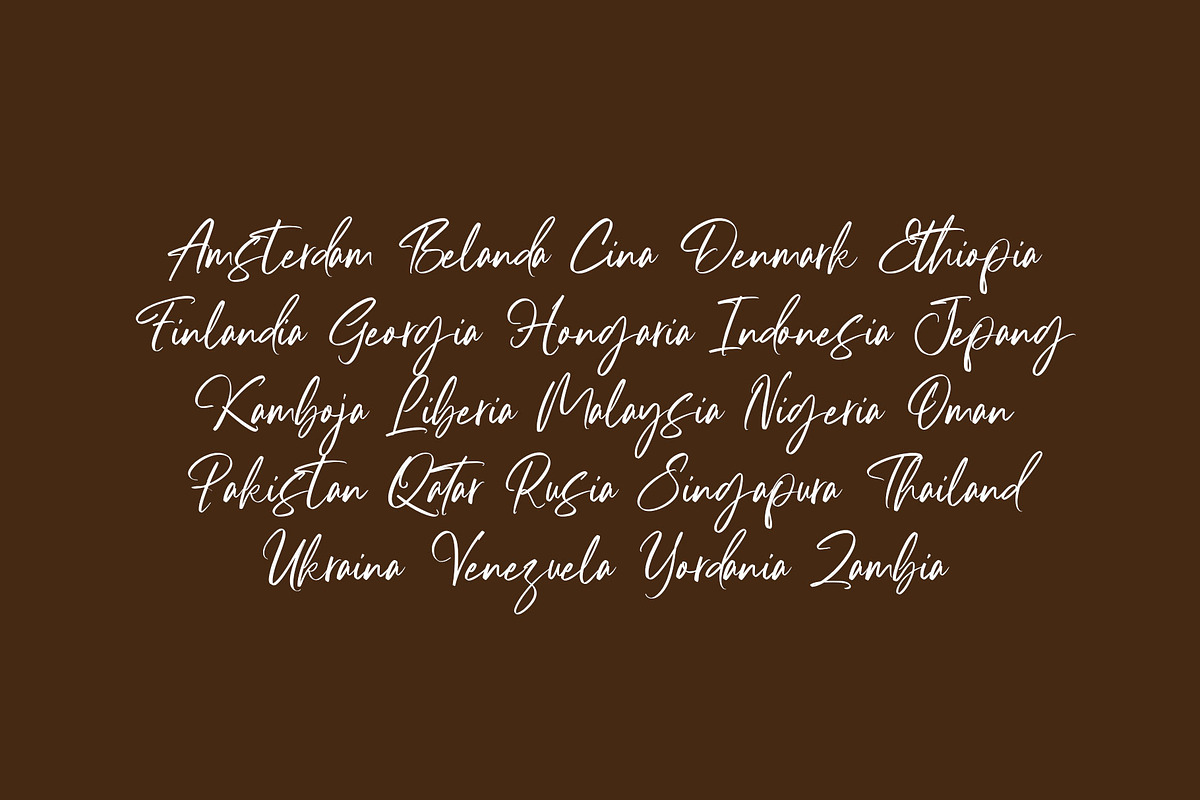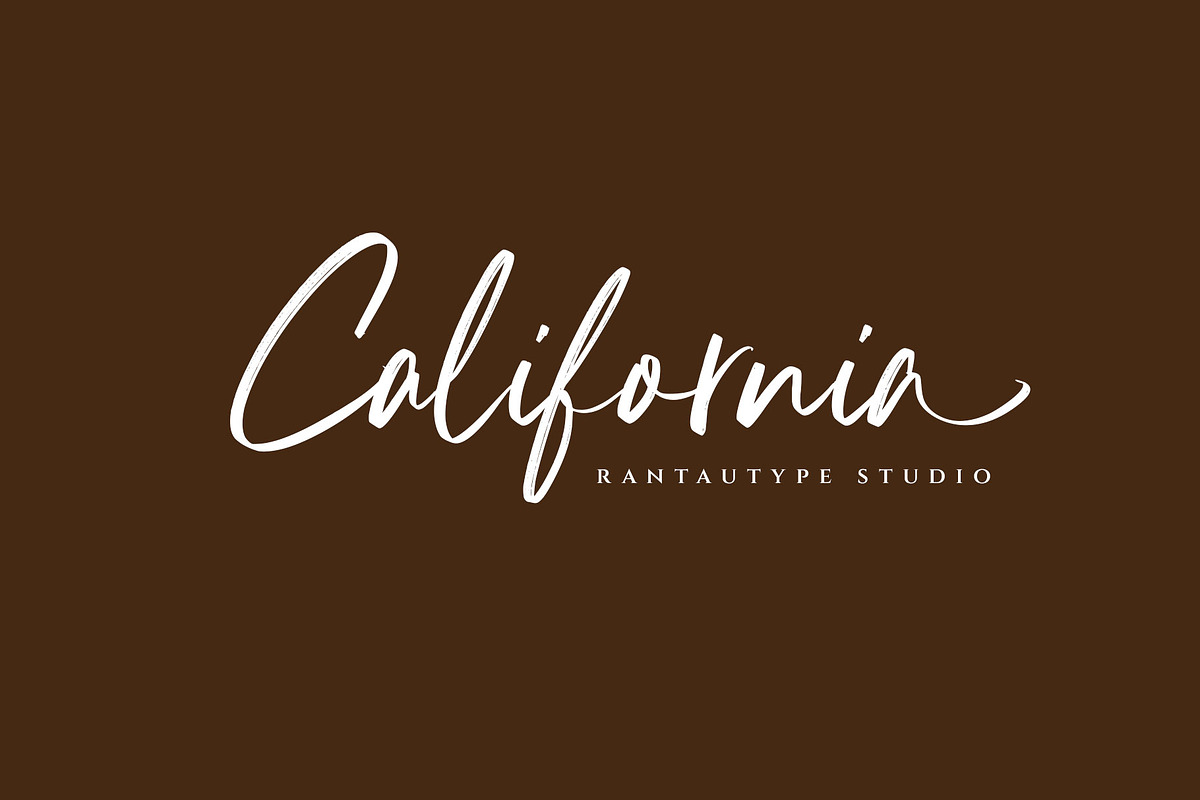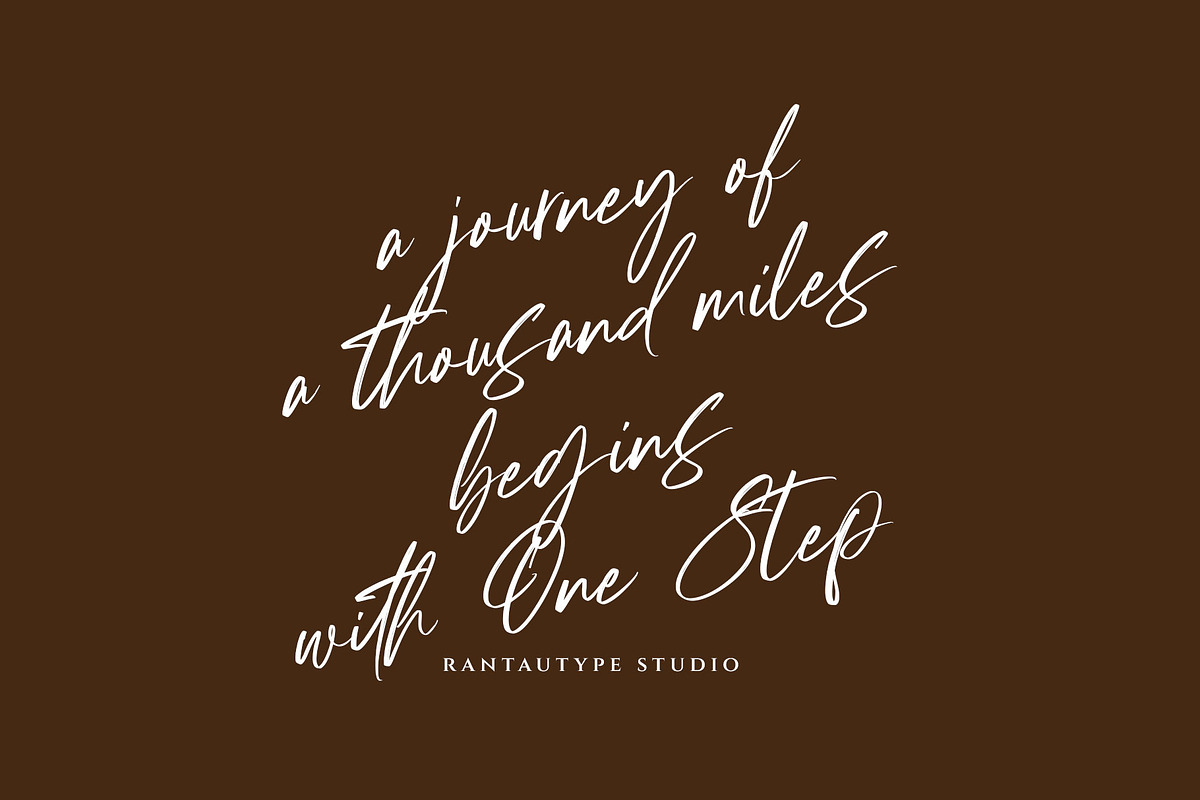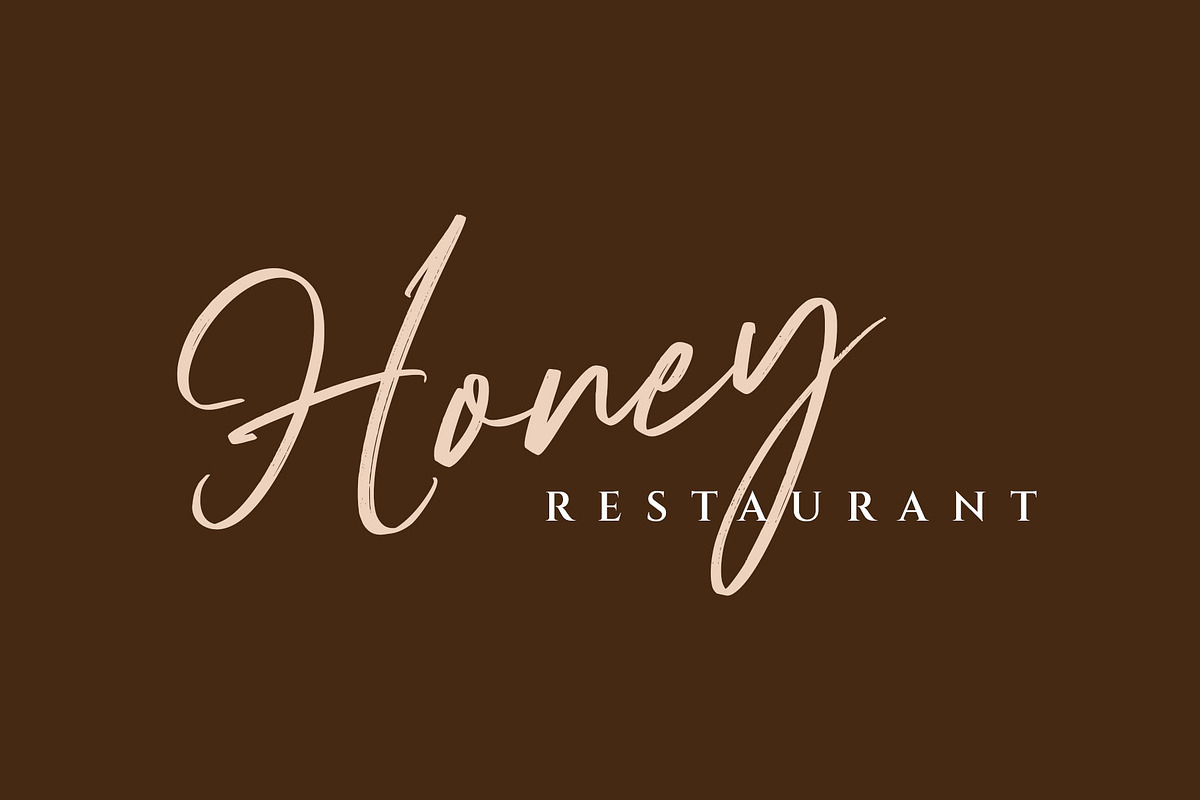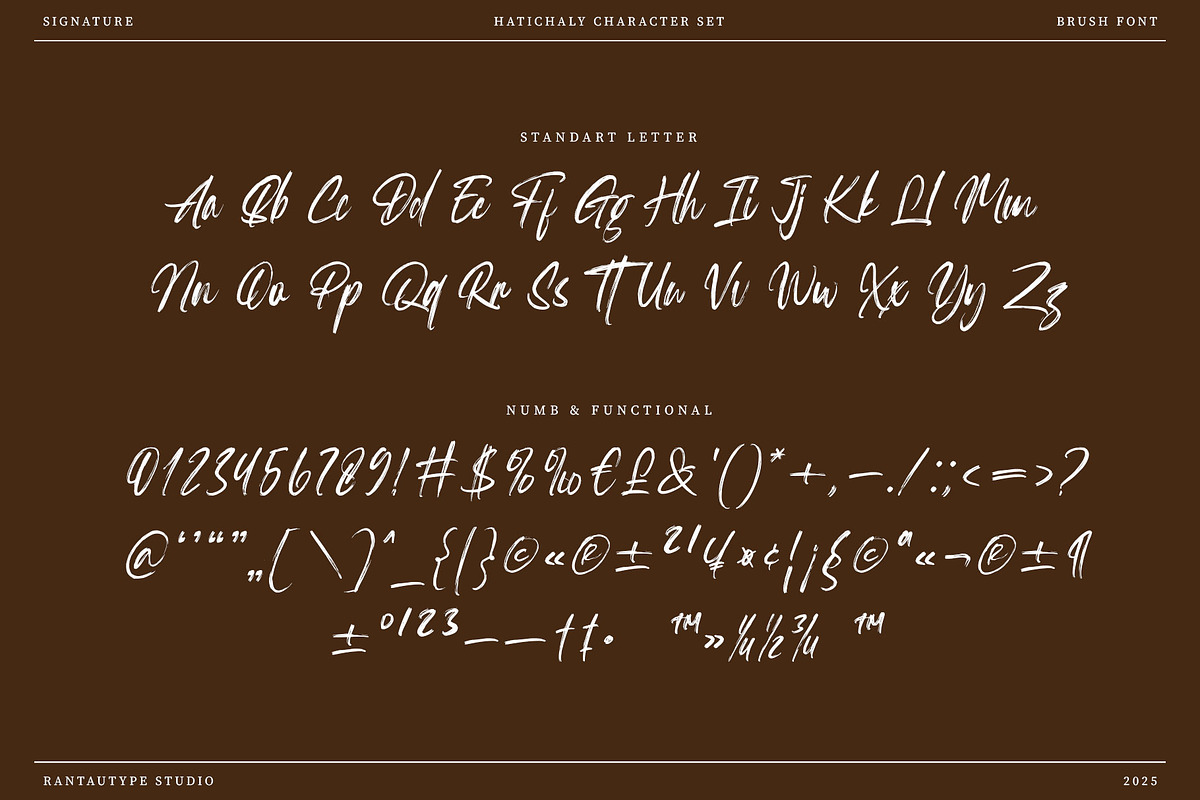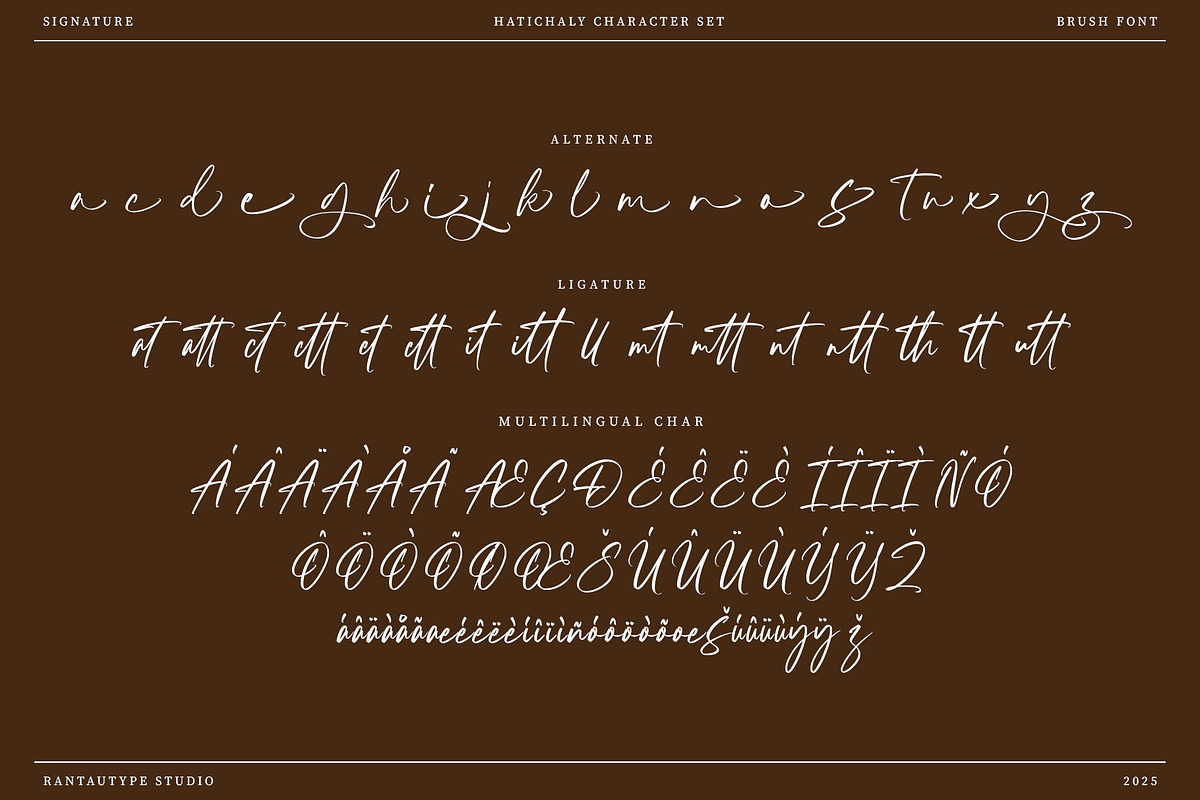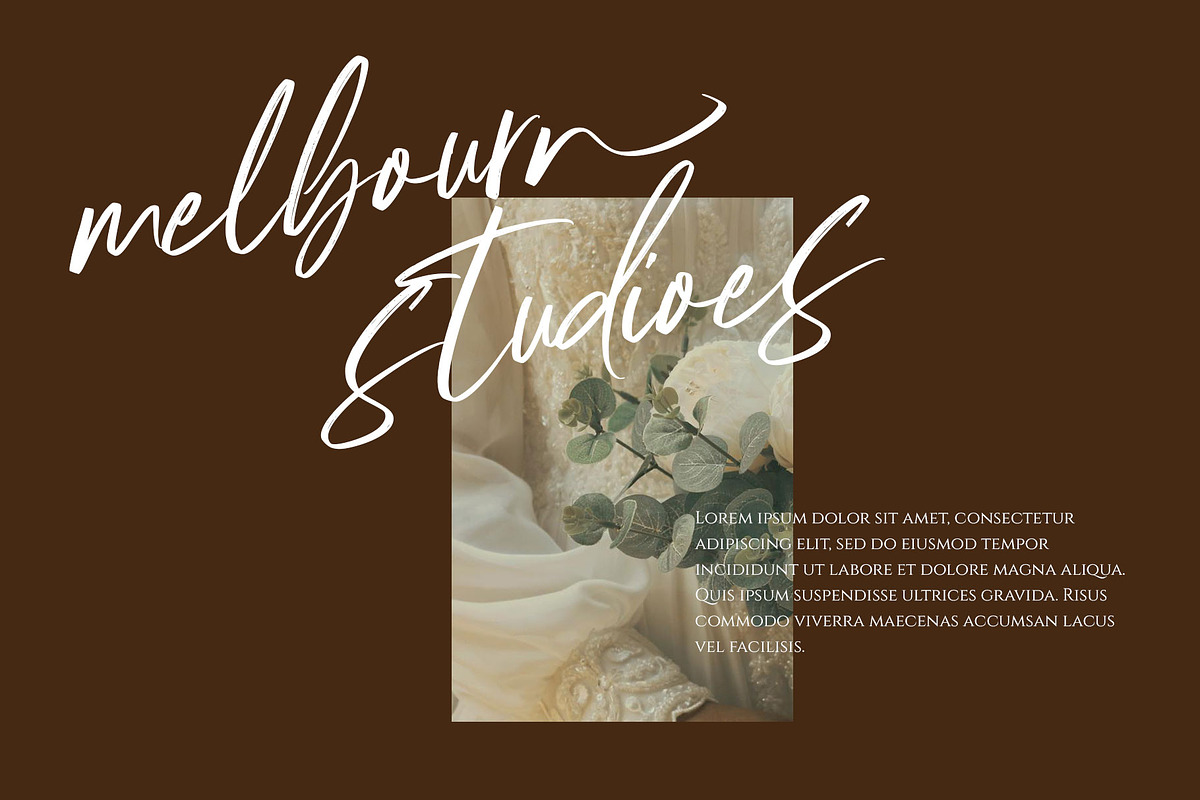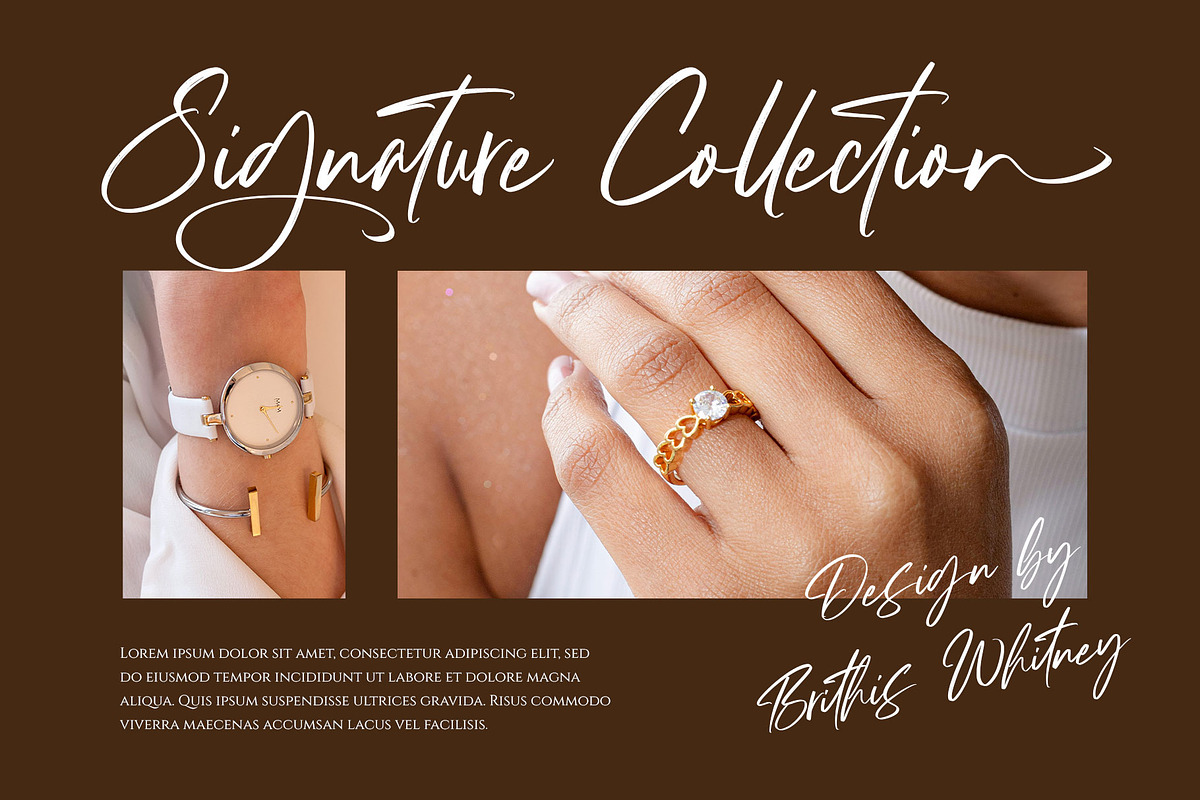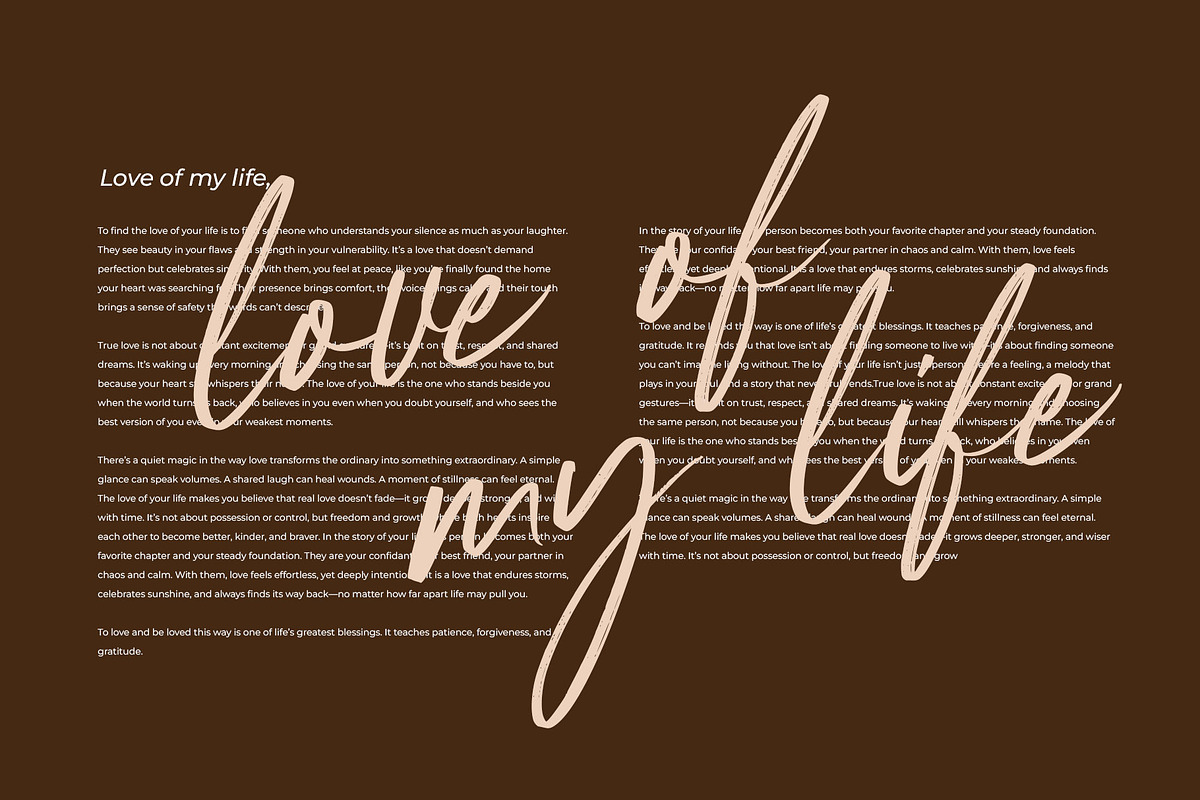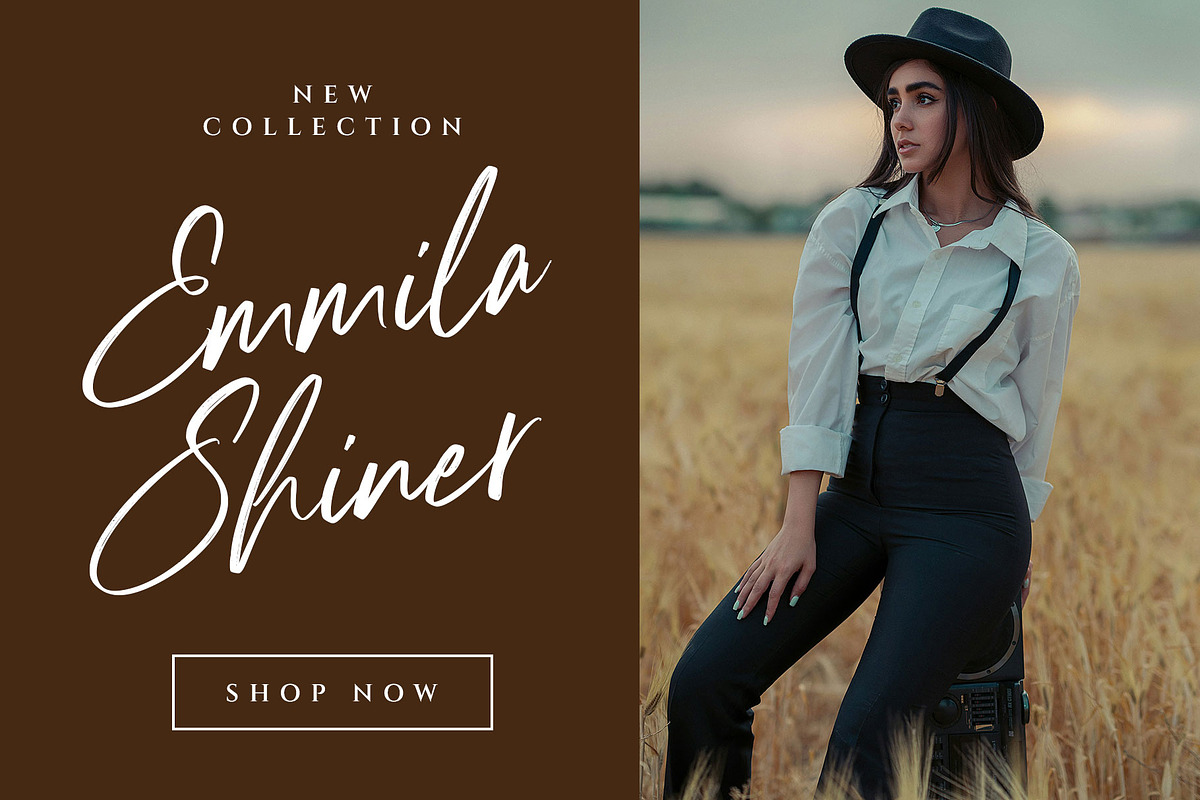
Hatichaly Classy Signature Brush Fon
Hatichaly is elegant signature brush font made by rantautype studio. Hatichaly is a perfectly choice for any creative endeavor, creating, modern, lifestyle design such as logotype, title, cover, branding, invitations, wedding designs, display and magazine, social media posts, advertisements, printed quotes, product packaging, corporate brand, product designs, labels, photography, watermarks, special events and any other project with modern touch.
- Alternate and ligature